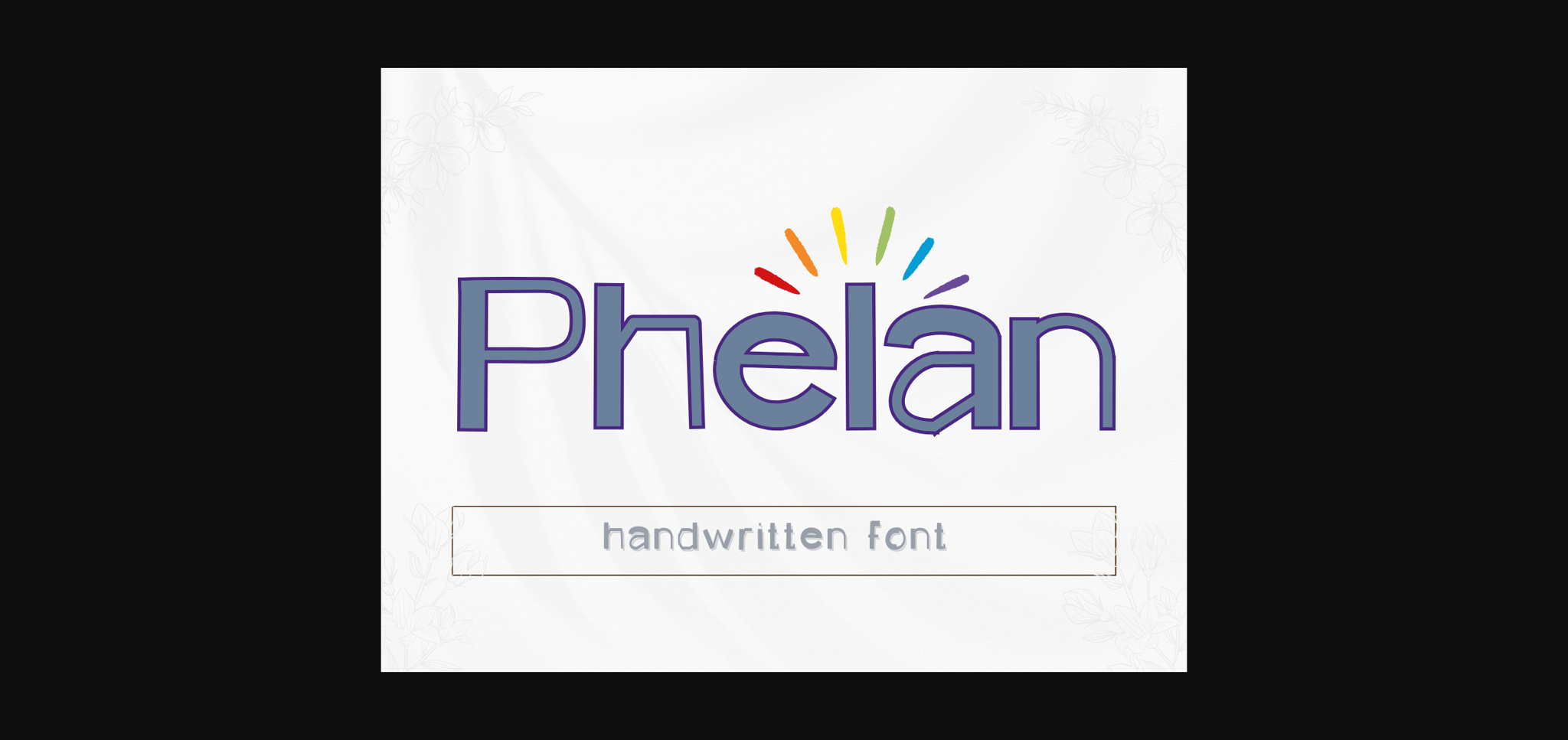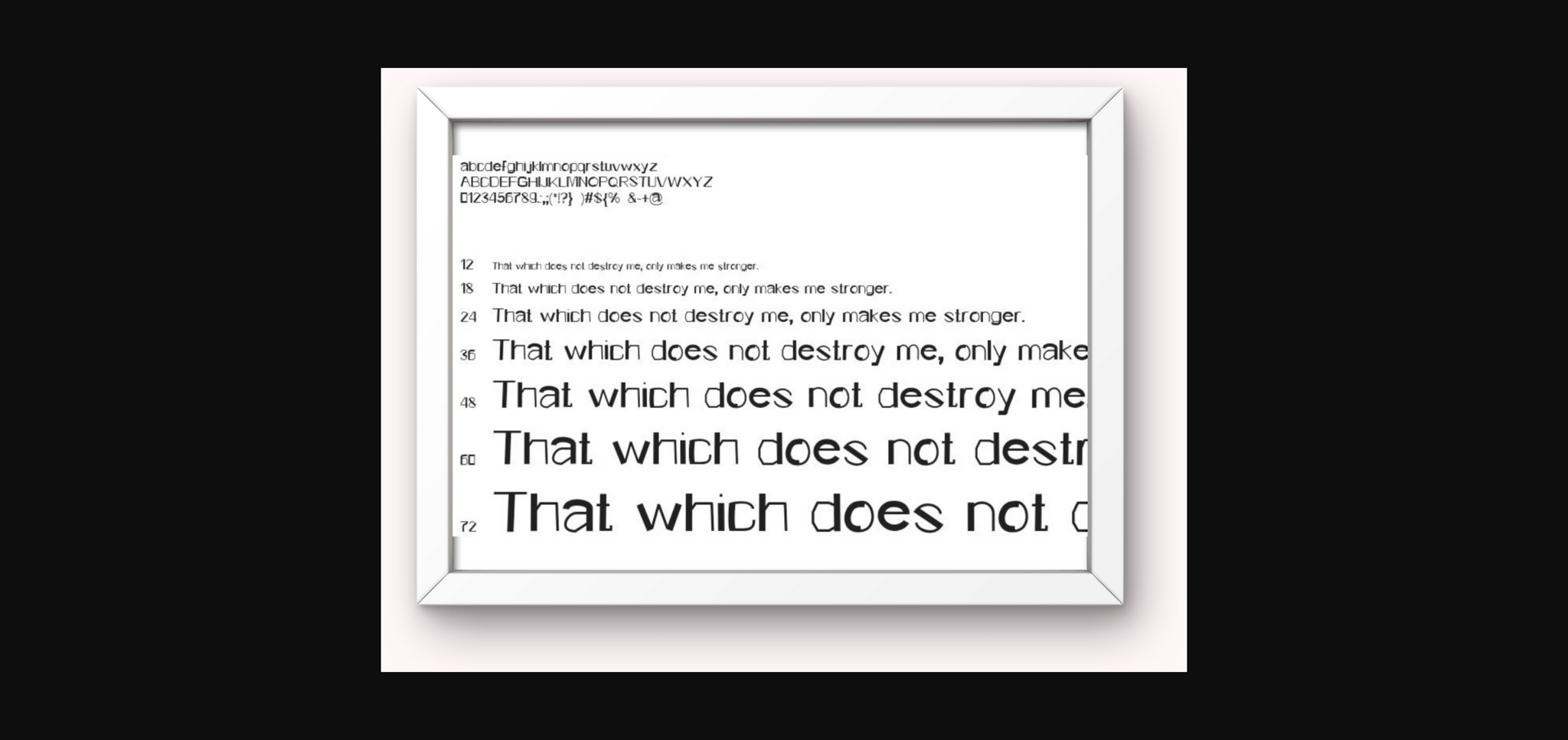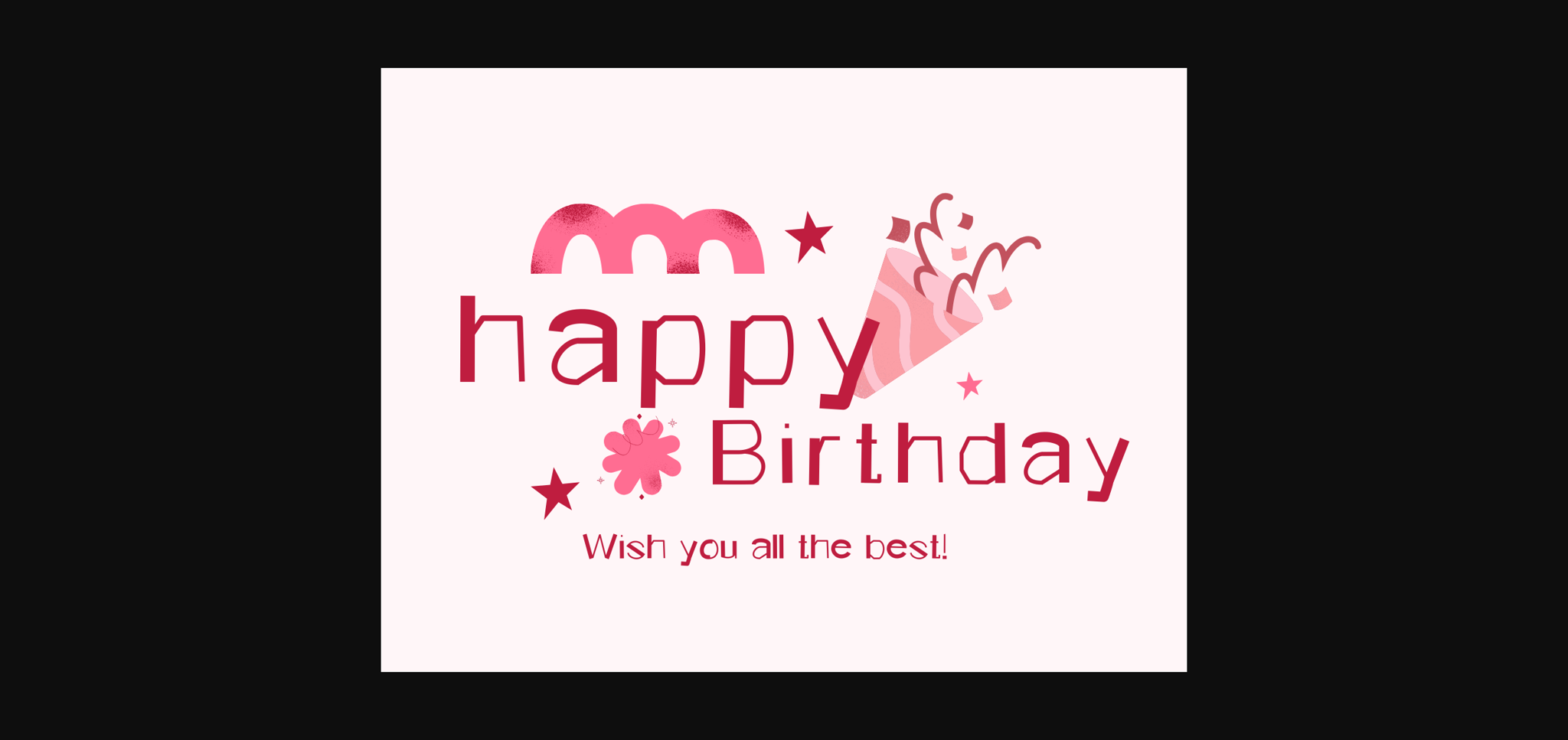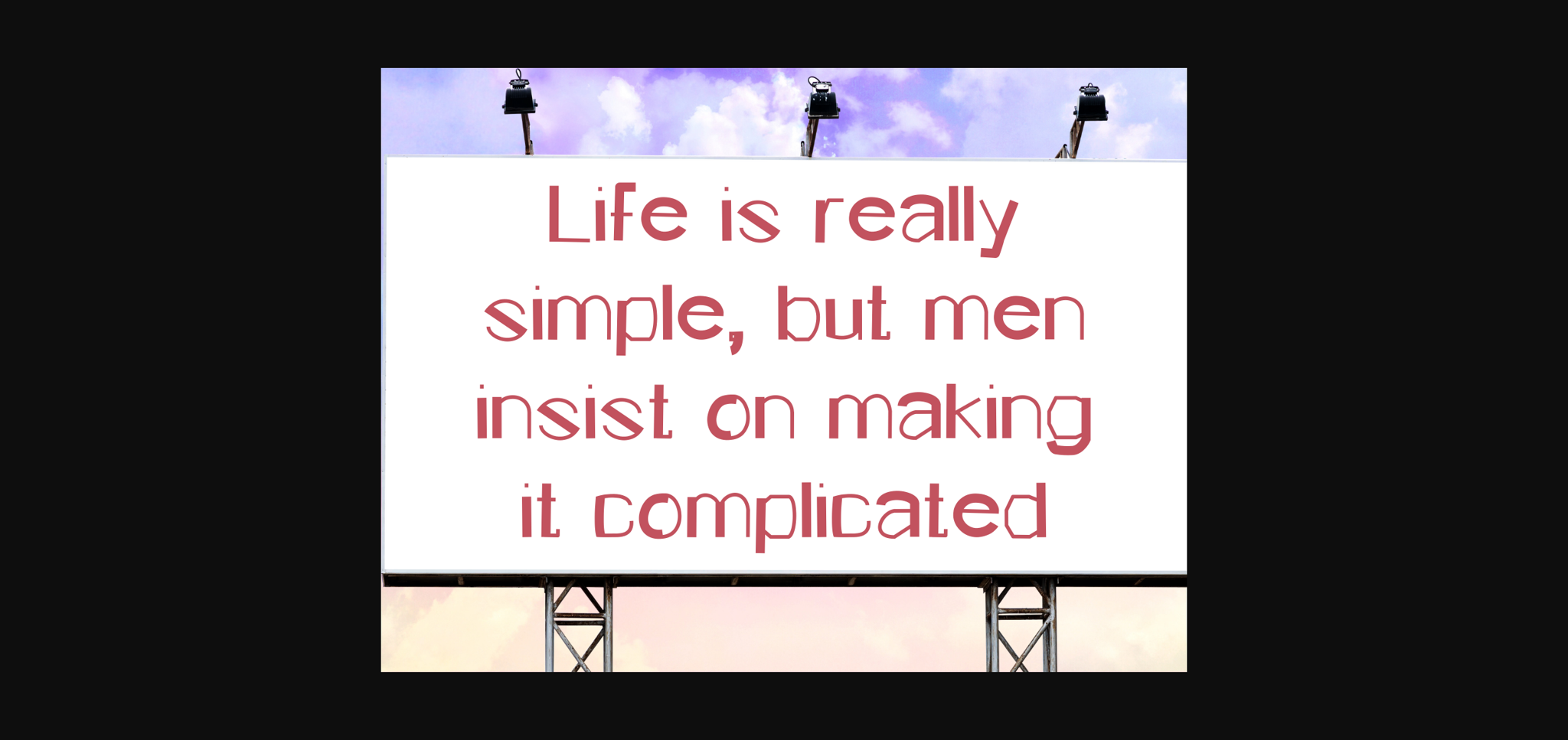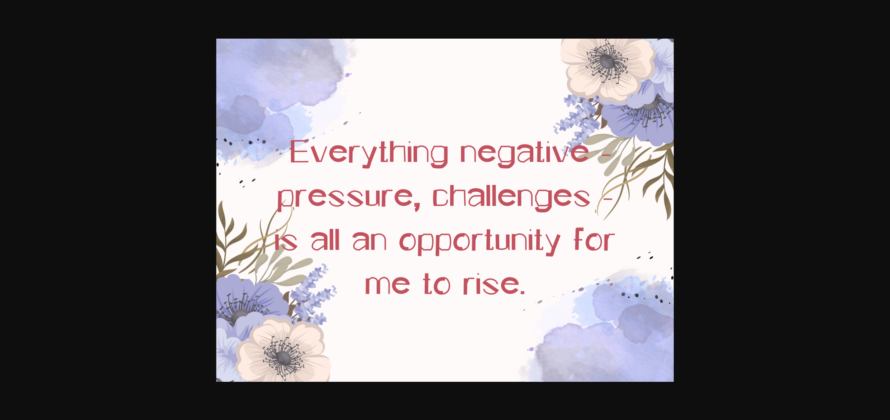
Phelan Font
About Phelan Font
Phelan is a fun and quirky sans-serif font that radiates playful energy. With lively, rounded letterforms and a friendly demeanor, it injects joy into your designs. Ideal for projects seeking a whimsical and approachable aesthetic, Phelan brings a delightful touch to your creative expressions.